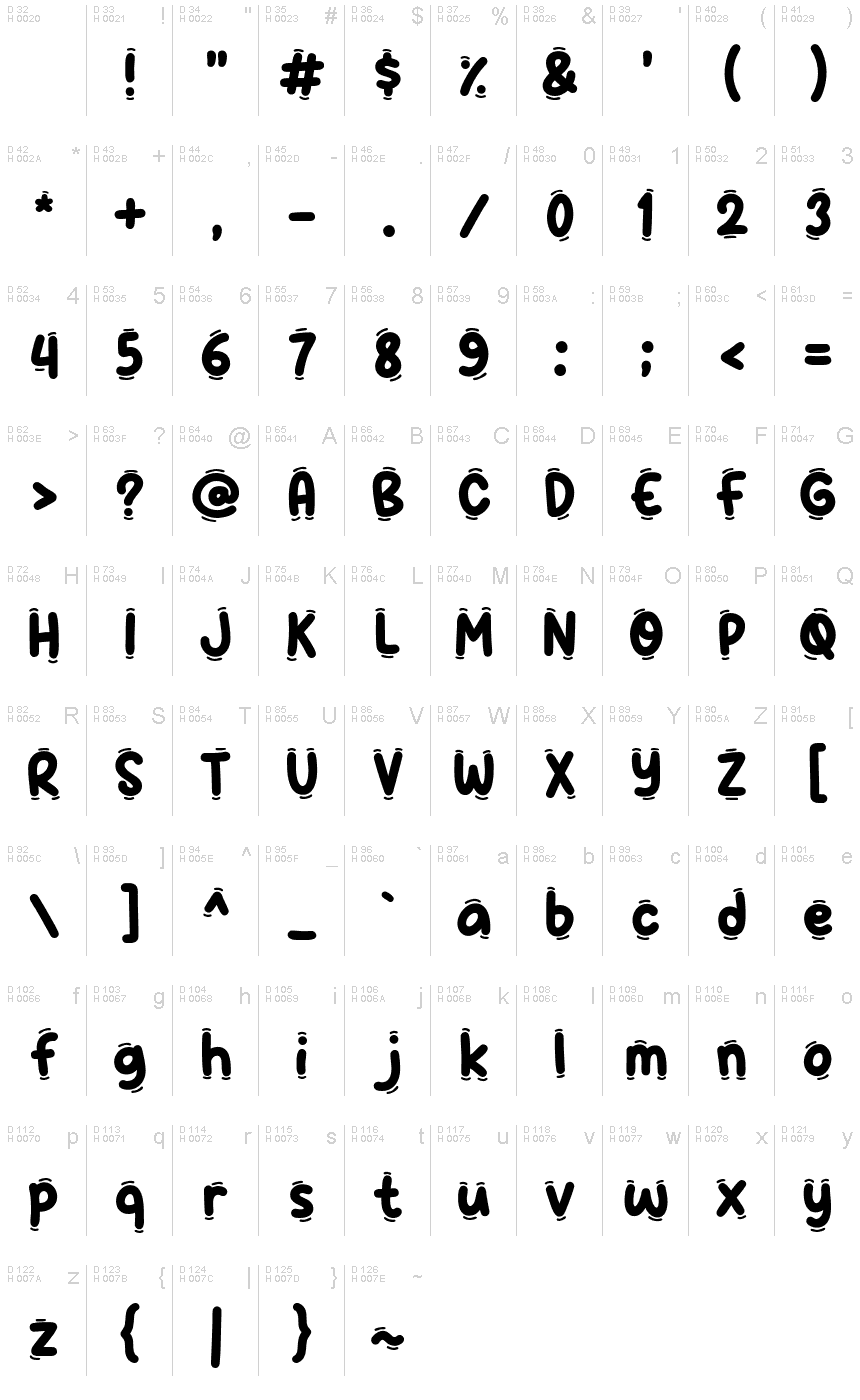
Sleepy Book
Sleepy Book, designed by Khurasan, is a whimsical display font that captures the playfulness of a children's book. With its cartoon style and semi-bold weight, Sleepy Book is perfect for projects that require a touch of humor and levity. Use it to create eye-catching headlines for children's books or design playful logos for brands targeting younger audiences. Its distinctive letterforms also make it suitable for greeting cards, posters, and invitations. Let Sleepy Book bring your designs to life with its fun and lighthearted personality.